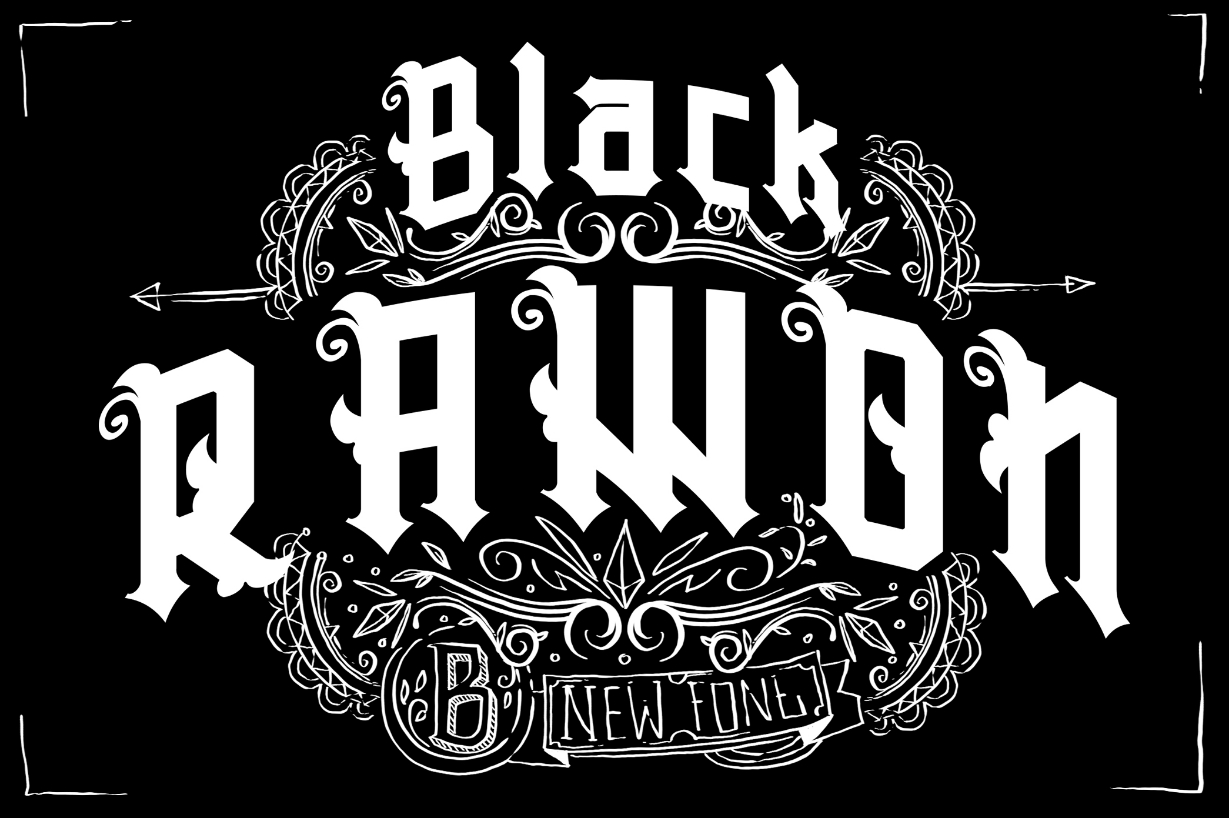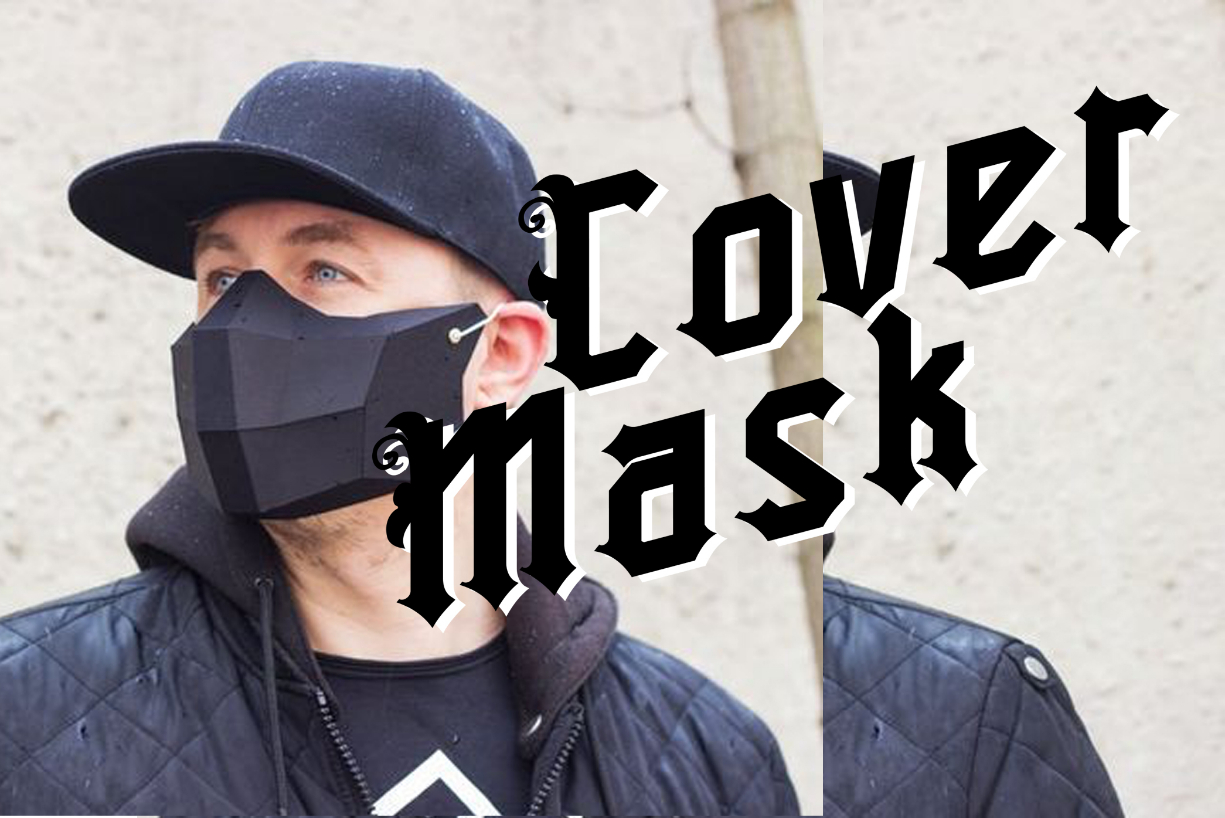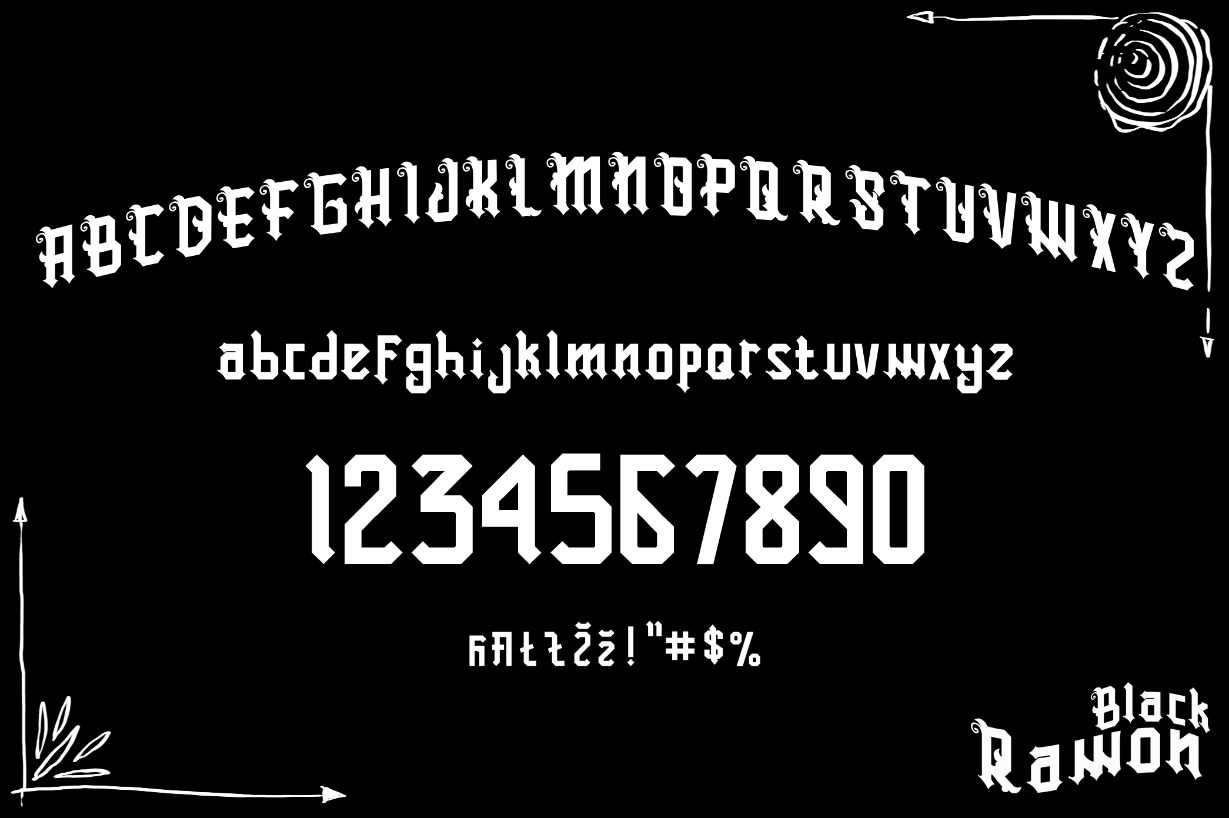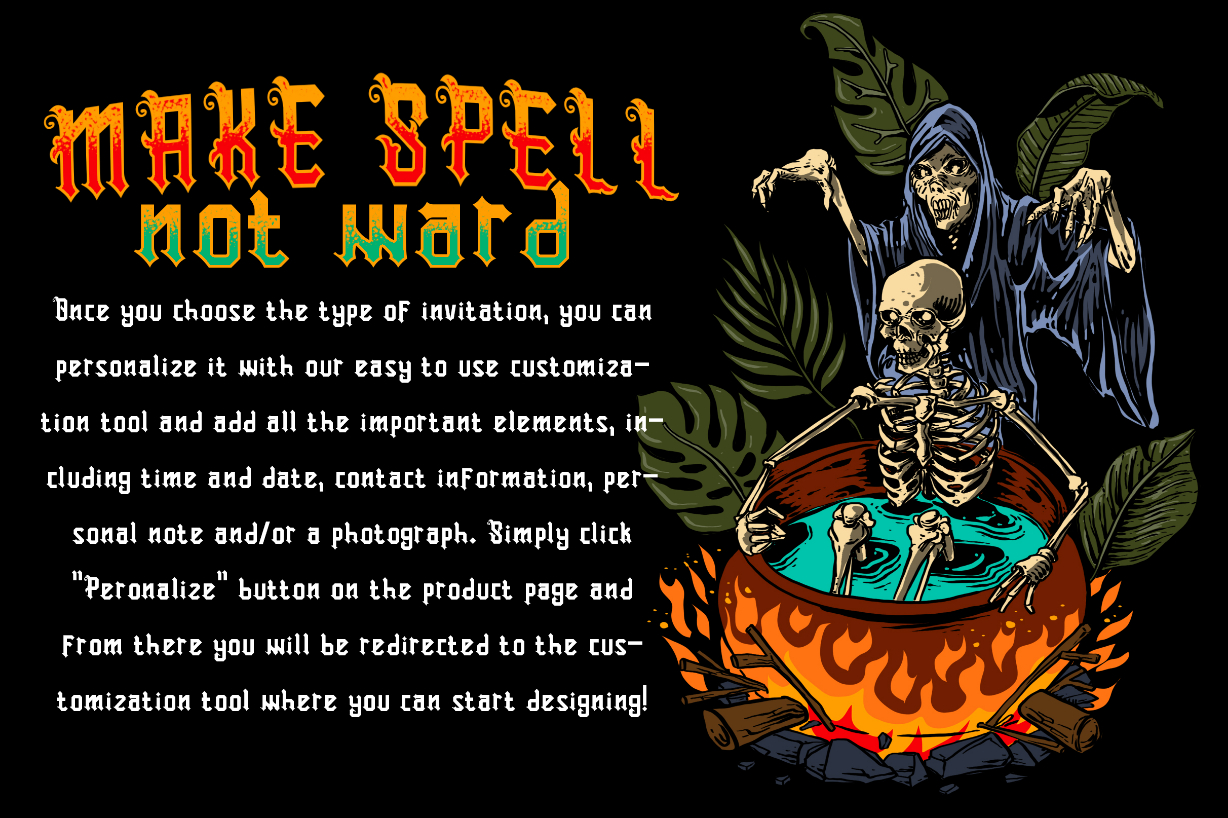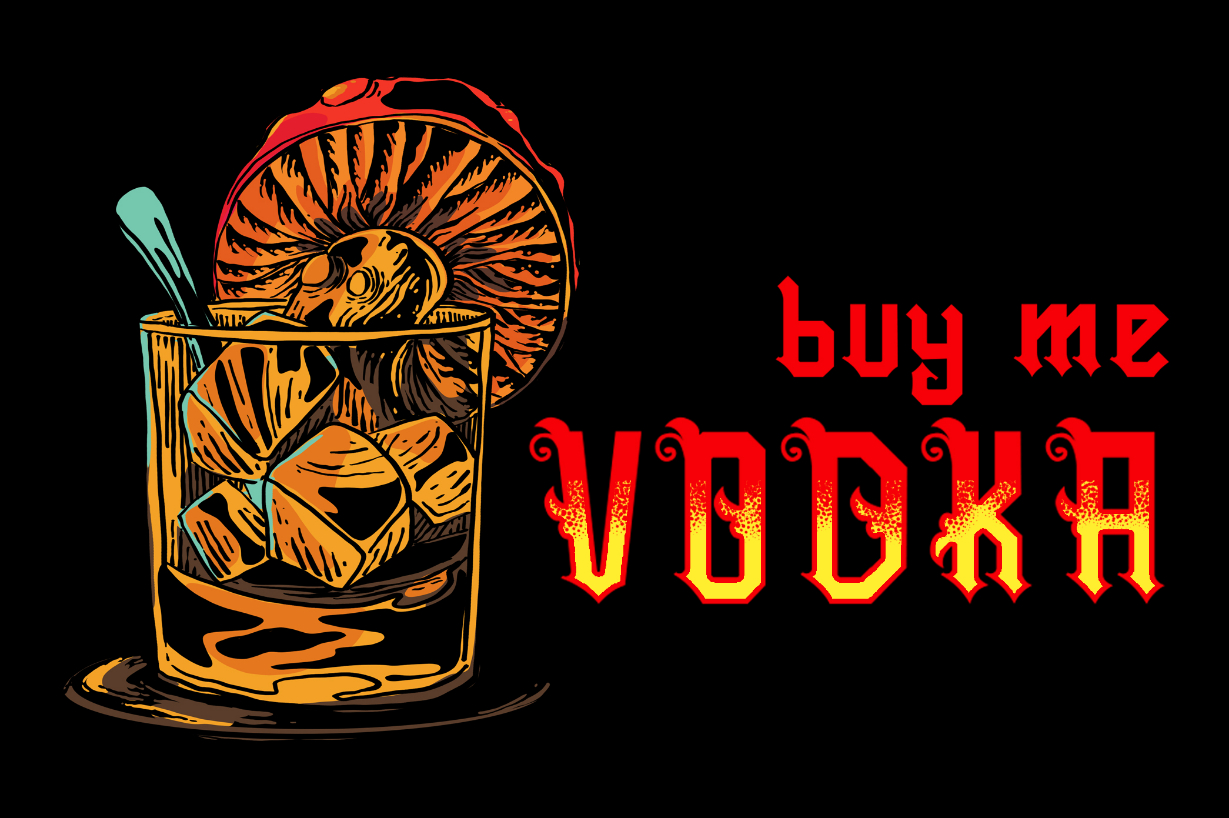
Black Rawon Font
About Black Rawon Font
Black Rawon is a bold and authentic blackletter font. It is ideal for any design that needs a strong, assertive touch.